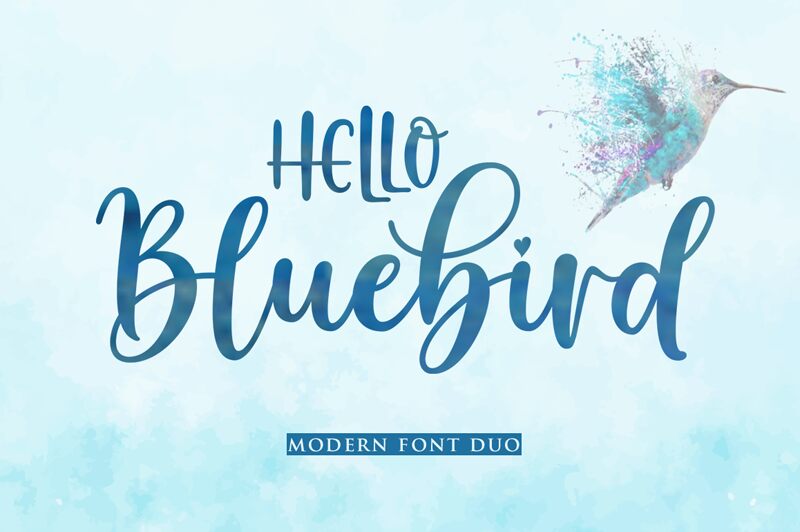
HelloBluebirdSans
Hello Bluebird Sans by Rastype embodies a charming blend of informality and elegance with its handwritten, condensed style. Its flowing, organic curves evoke the casual grace of hand lettering, while the narrow width ensures that it maintains a neat and tidy presence. This distinctive font combines personality with practicality, making it versatile enough for a variety of creative projects.
The aesthetic appeal of Hello Bluebird Sans lies in its ability to convey warmth and approachability without sacrificing sophistication. It's an ideal choice for designers seeking to inject a human touch into branding, packaging, or digital designs where space is at a premium but legibility is paramount. Whether used in headlines that demand attention or text blocks that require an inviting tone, Hello Bluebird Sans stands out as a font that bridges the gap between artisanal charm and modern design efficiency.